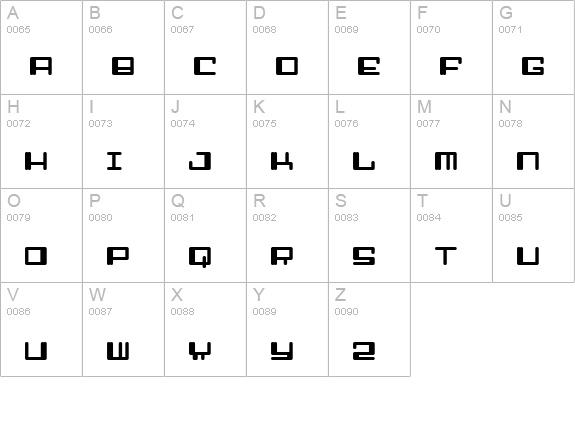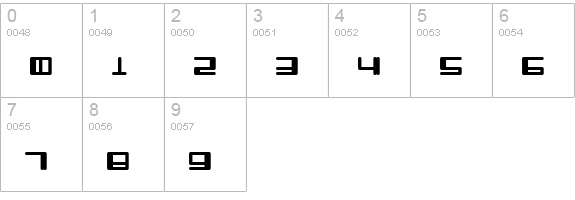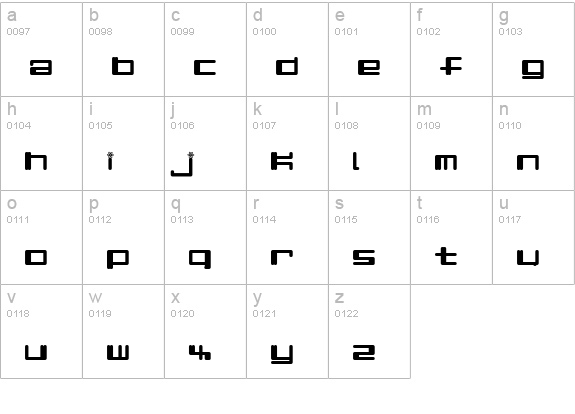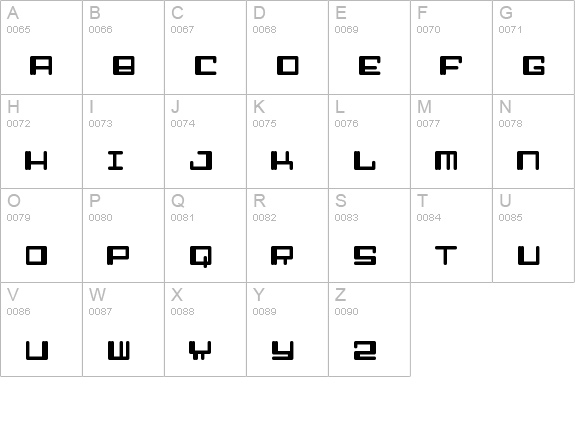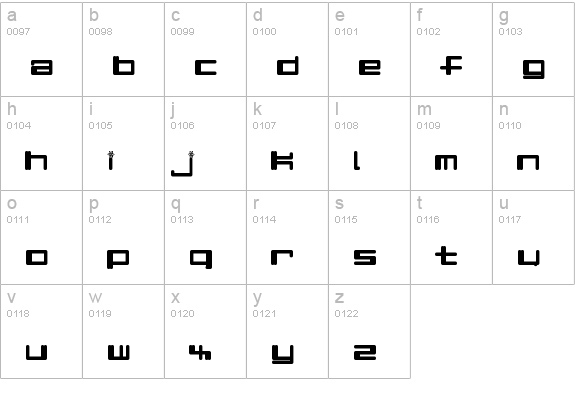
Alpha Niner Font Details
Alpha Niner font is a modern and sleek typeface that exudes sophistication and elegance. With its clean lines and geometric shapes, this font is perfect for creating eye-catching designs that stand out. Whether you are designing a logo, website, or any other project, Alpha Niner font will add a touch of class and professionalism. The best part? Alpha Niner font is completely free to download at FontsMarket.com. You can easily access this stylish font and elevate your design projects without breaking the bank. Don't miss out on the opportunity to enhance your work with the timeless charm of Alpha Niner font. Download it today and let your creativity soar!